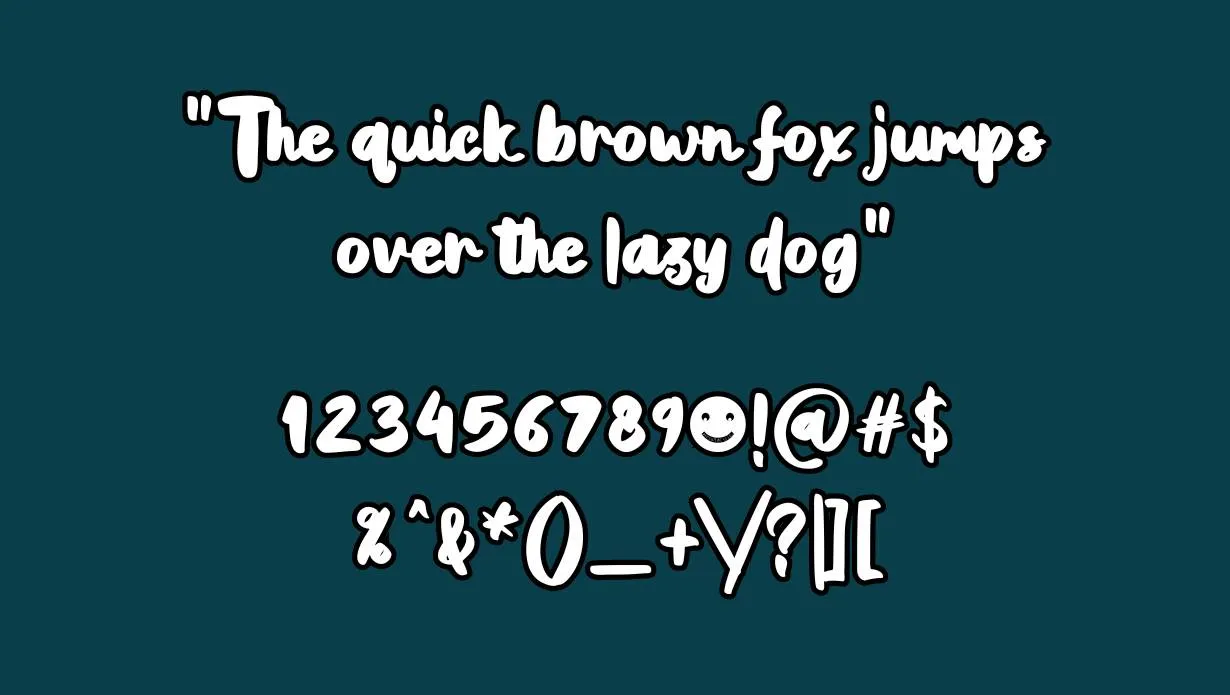
Jungle Font has a wild and adventurous style. Its bold, exotic letters bring a sense of exploration and nature to any text. This font commonly comes in TTF and OTF file formats, making it compatible with a wide range of software.
Jungle Font
DesignerRachma BT
StyleFancy
It’s often used in designs related to wildlife or outdoor themes, evoking a feeling of excitement and discovery. Its untamed appearance adds a touch of wilderness, making the text look adventurous and vibrant. Achieve the desired audience response by pairing the freezone font with this font family to maximize the effectiveness of your communication.